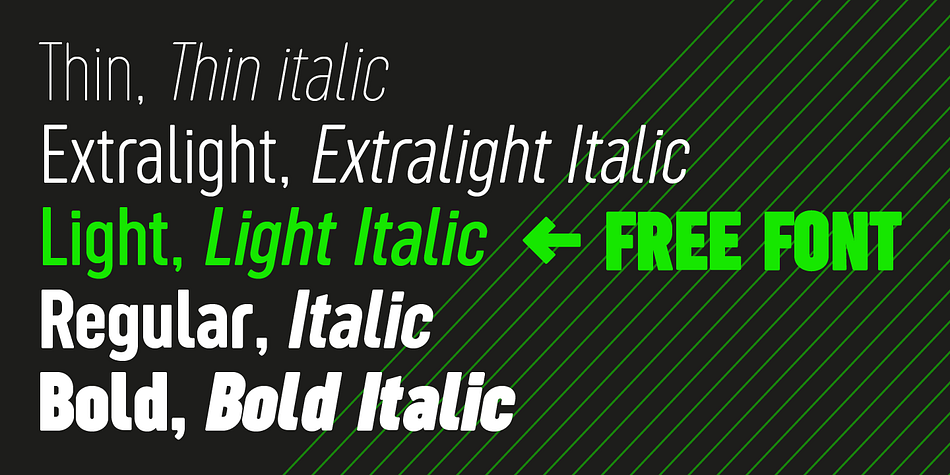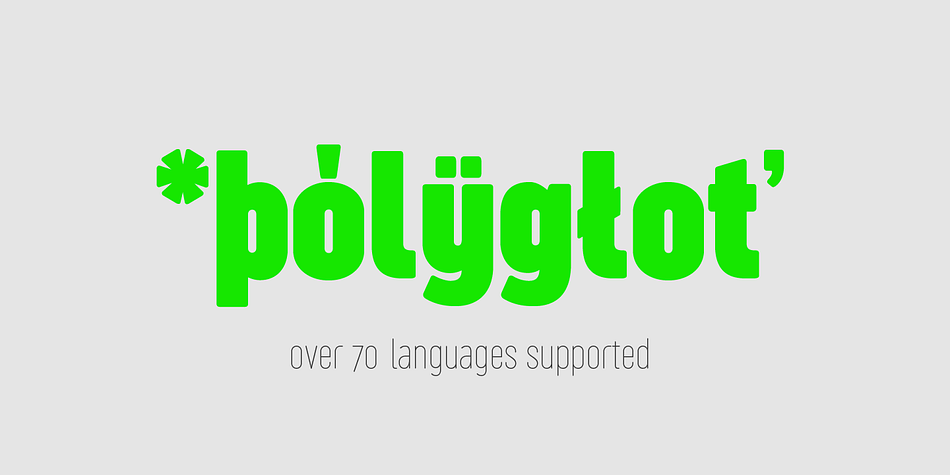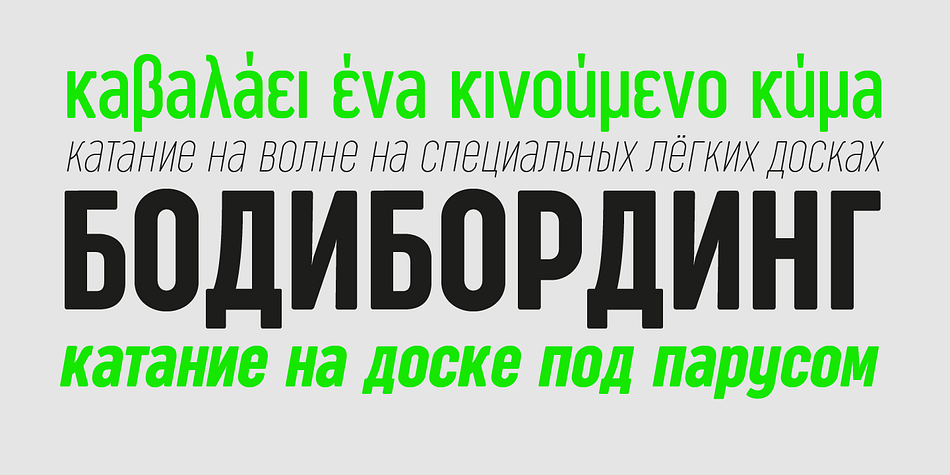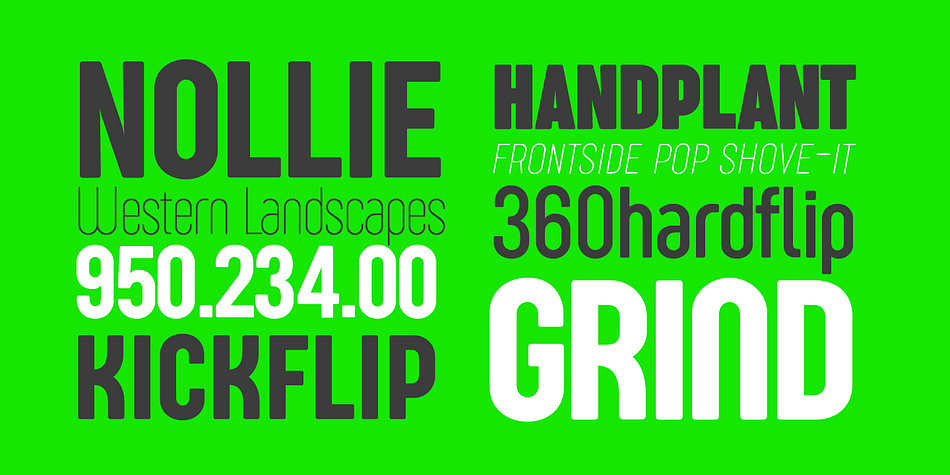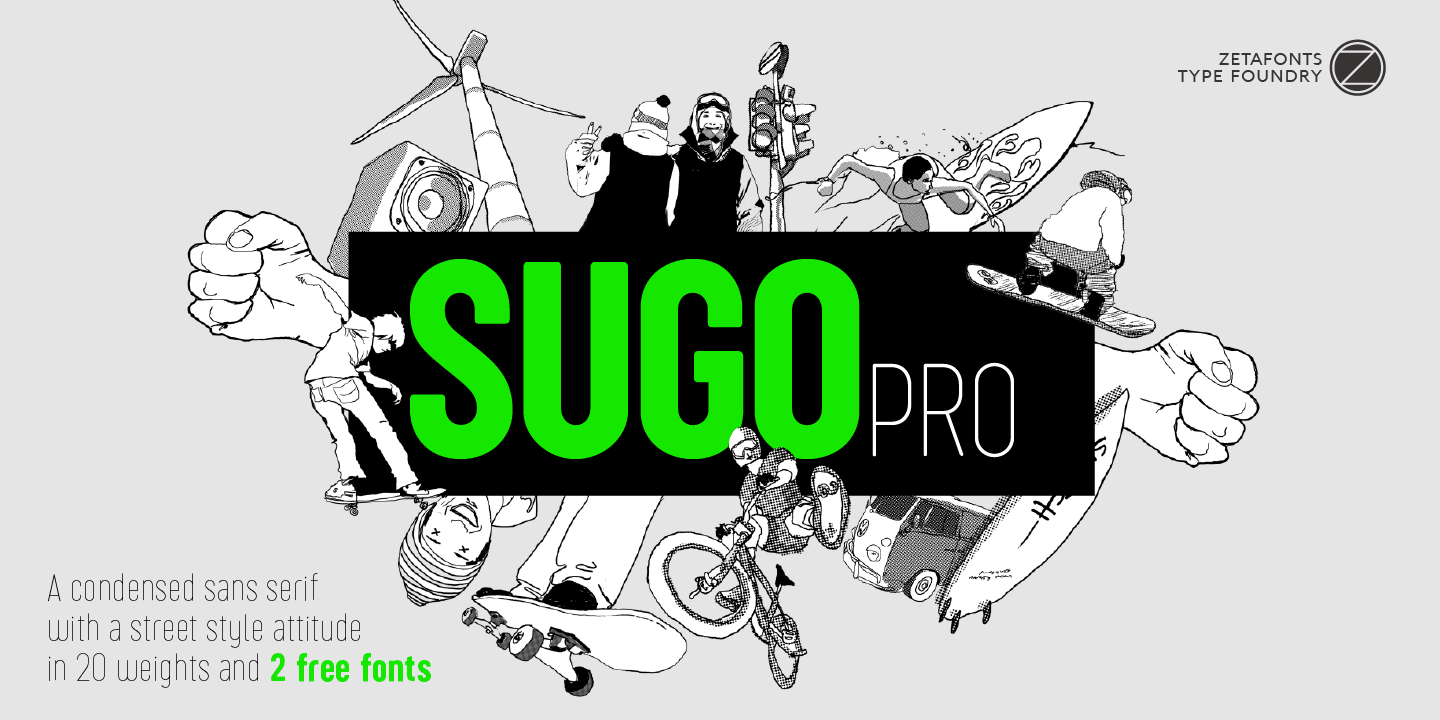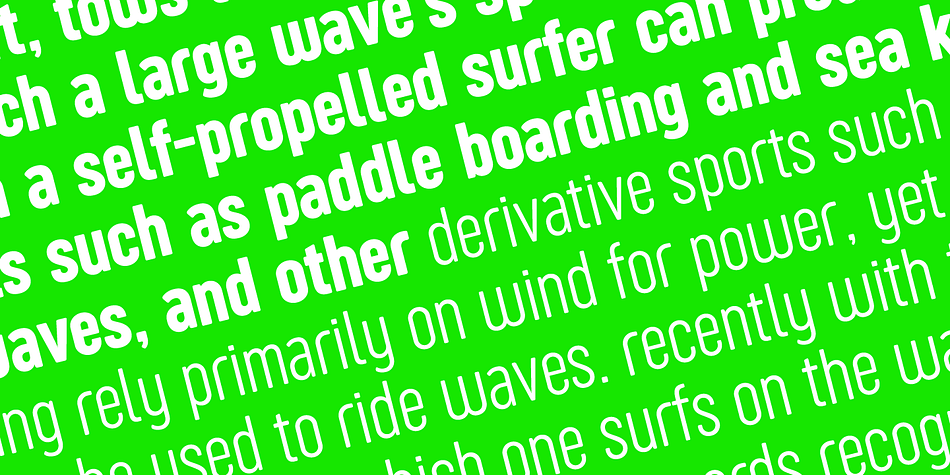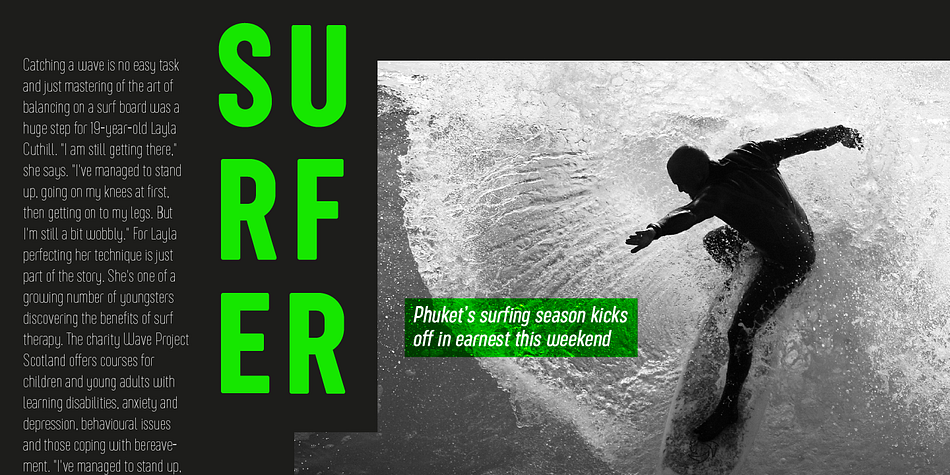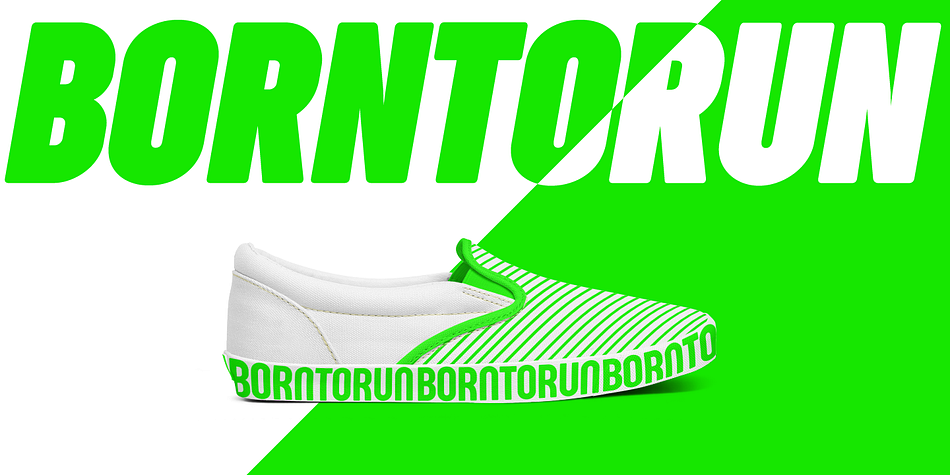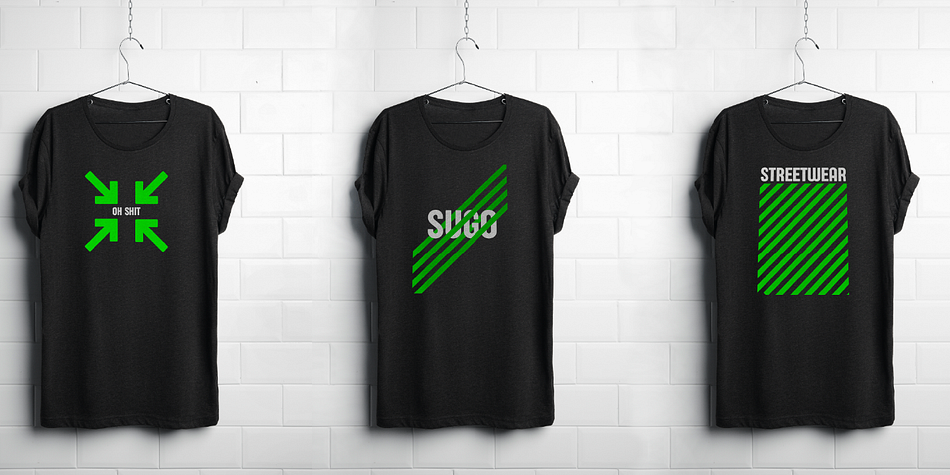
Designed by Francesco Canovaro and Andrea Tartarelli, Sugo Pro is a display sans and sans serif font family. This typeface has twenty styles and was published by Zetafonts.
Sugo Pro is a condensed geometric sans serif with a robust body, slightly rounded corners and no-nonsense street style attitude. The sturdy, robust design of Sugo makes it an ideal choice for sports branding and street-style editorial use. Lighter weights provide great legibility at small sizes while the regular and bold weights are more suited to titling, logo and headlines.
It was designed in 2006 by Francesco Canovaro in two weights (regular and extralight) and later used by Cosimo Lorenzo Pancini as base inspiration for the design of the successful Zetafonts’ Cocogoose Pro typeface. In 2018 the family was completely redesigned by Andrea Tartarelli, expanding the original glyph set to include cyrillic and greek and adding three extra weights and italics. The restored and revamped version, named Sugo Pro Classic, also includes full Open Type features for positional figures, Alternates and Small Caps, and restores alternate glyph shapes created by Canovaro for the original Sugo, accessible as Stylistic Alternates.
A companion typeface, Sugo Pro Display, uses these alternates as base glyphs and provides a tighter kerning, ideal for display use and logo design.